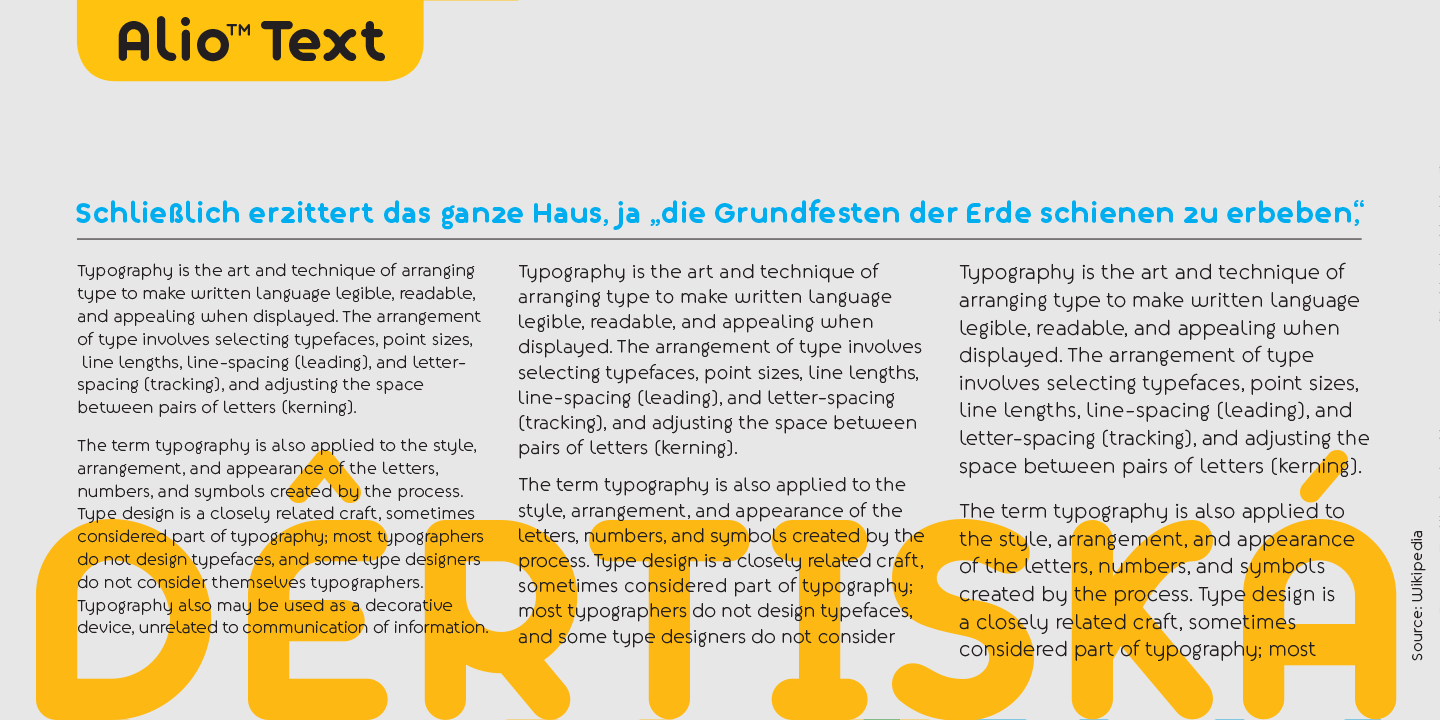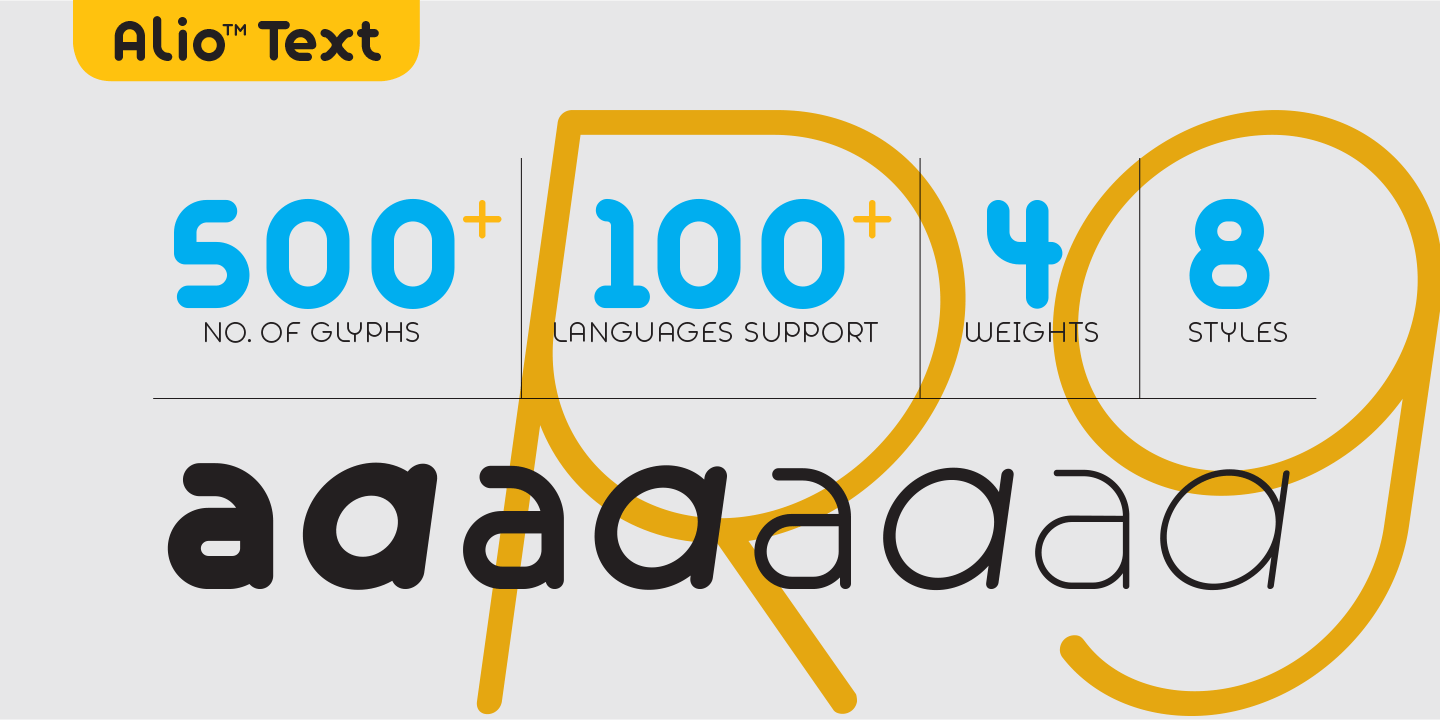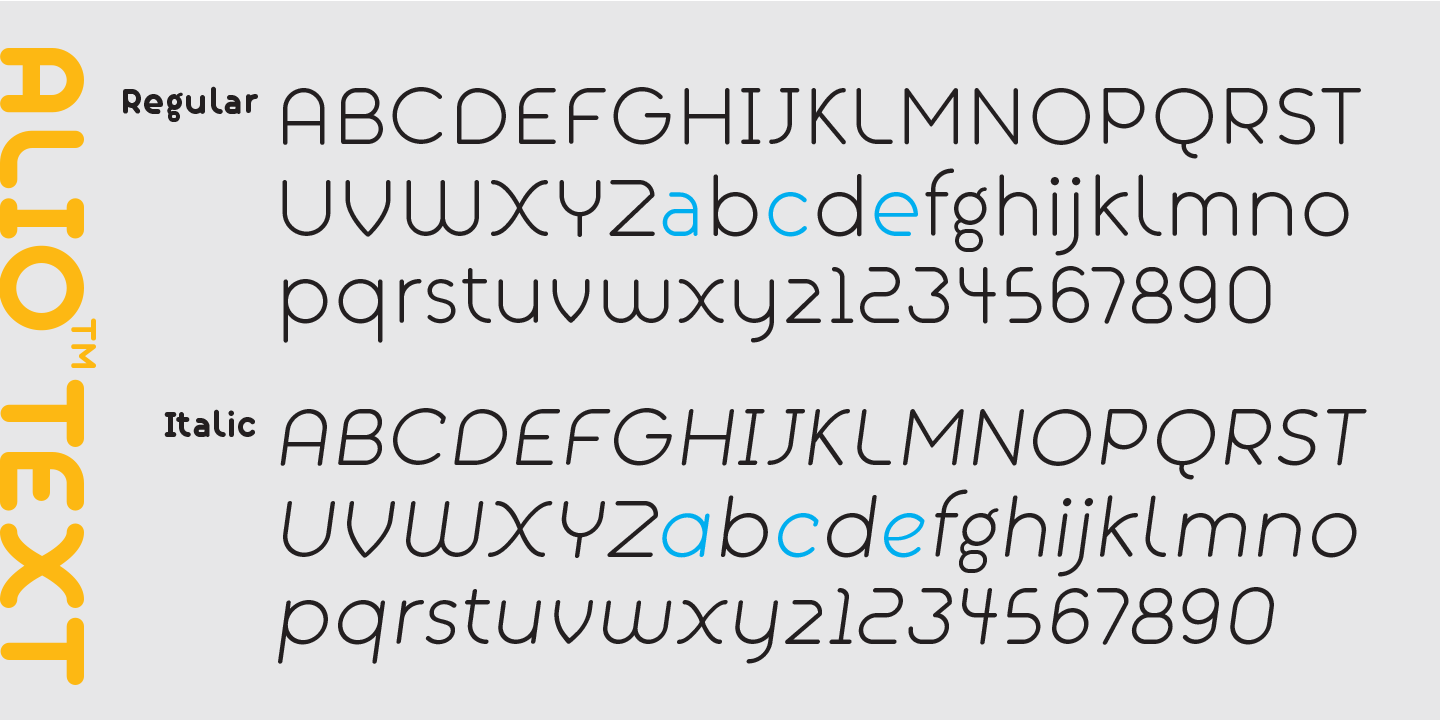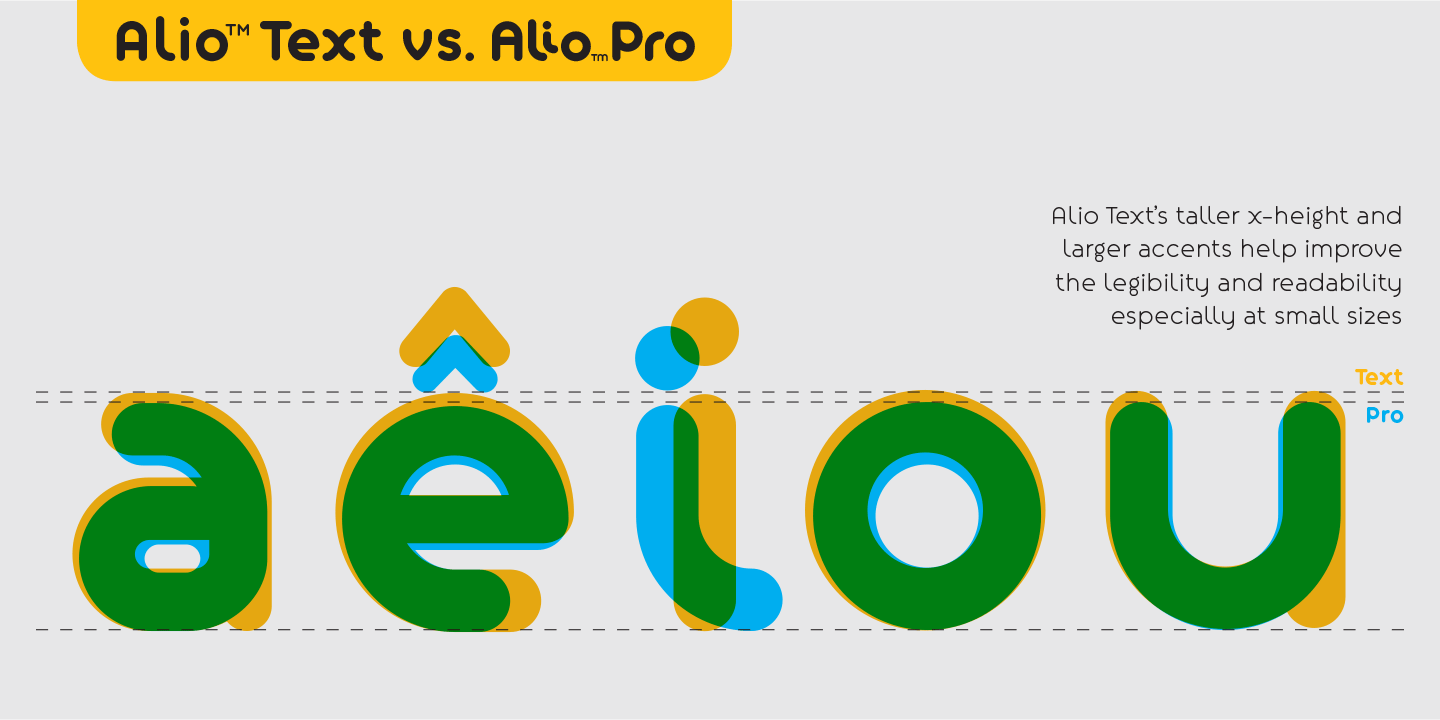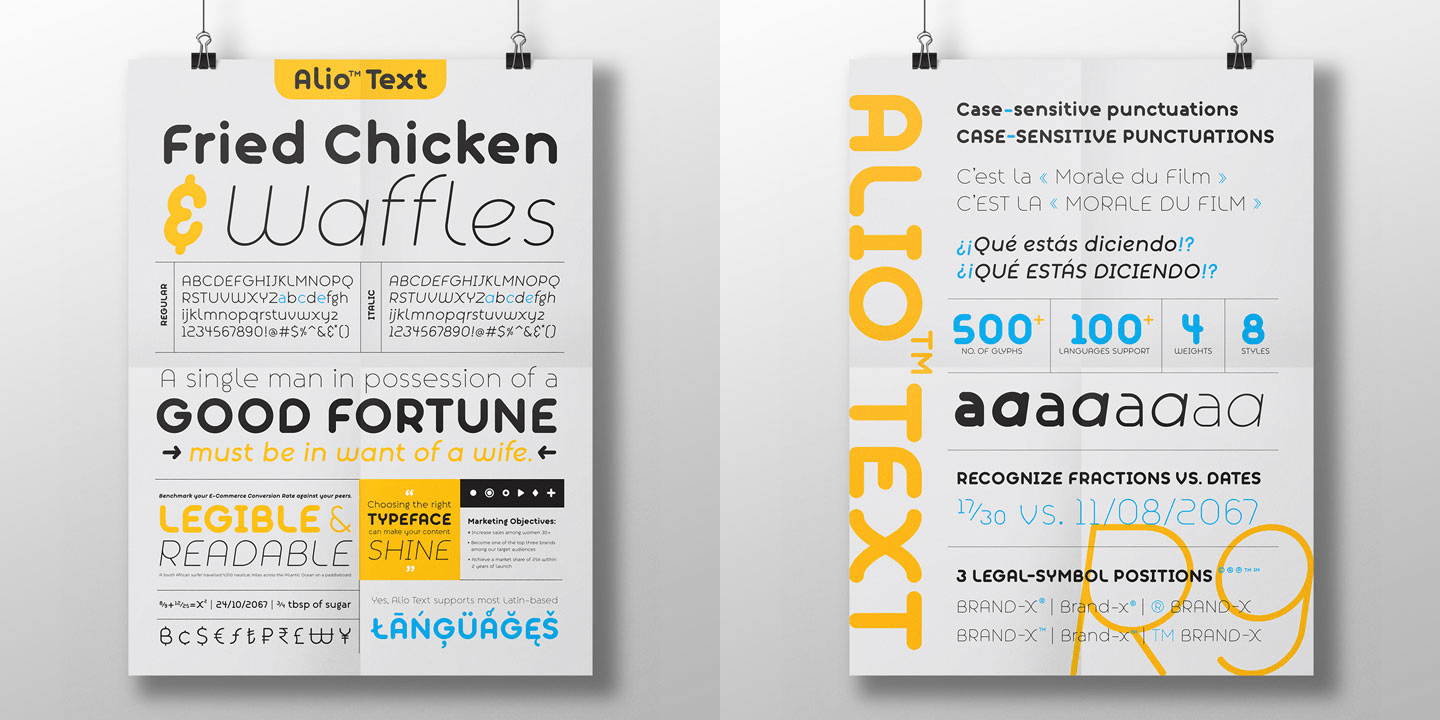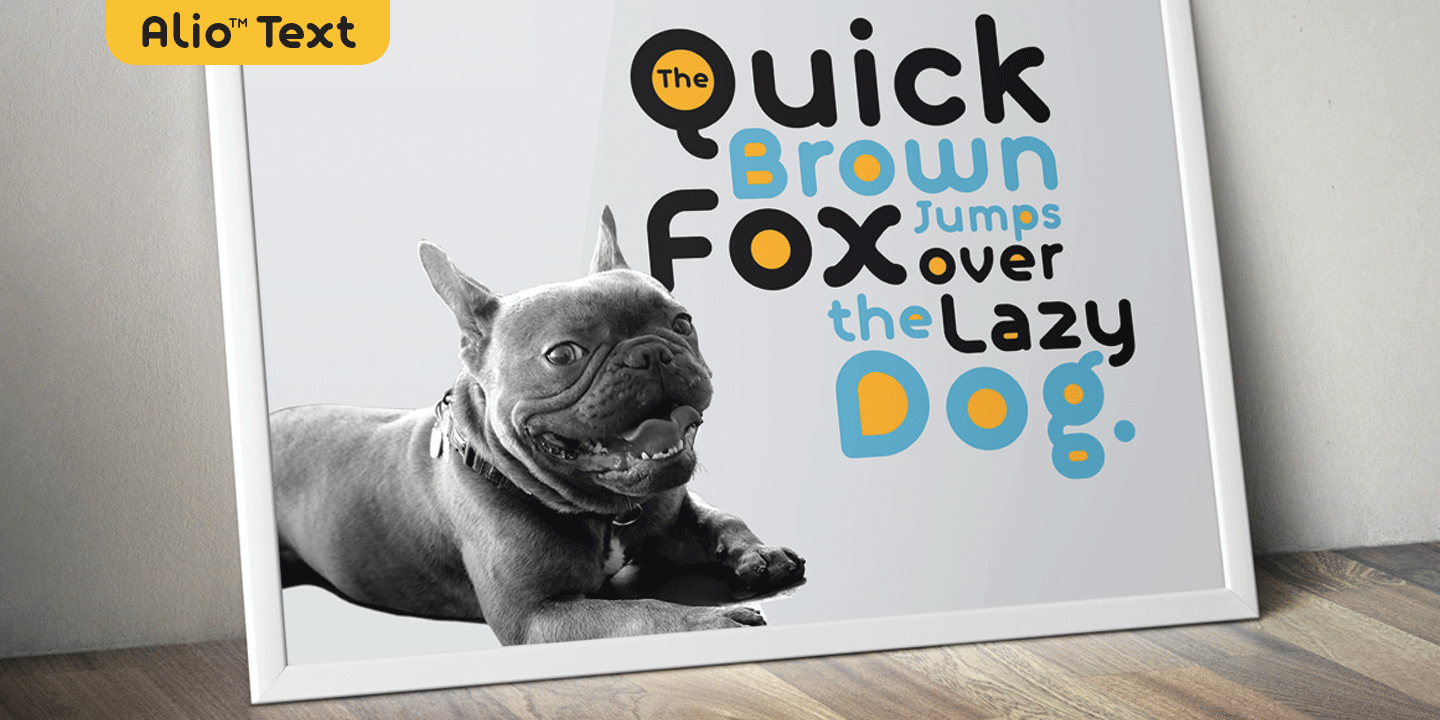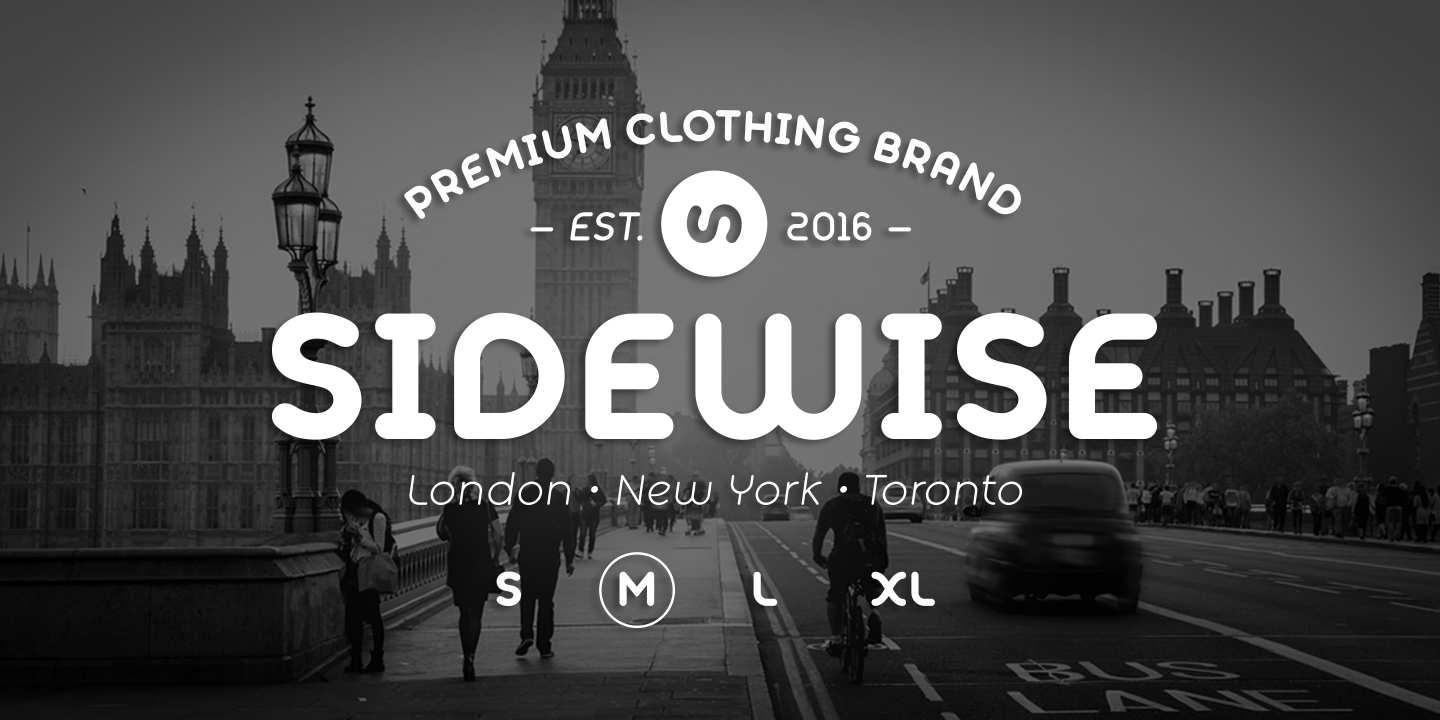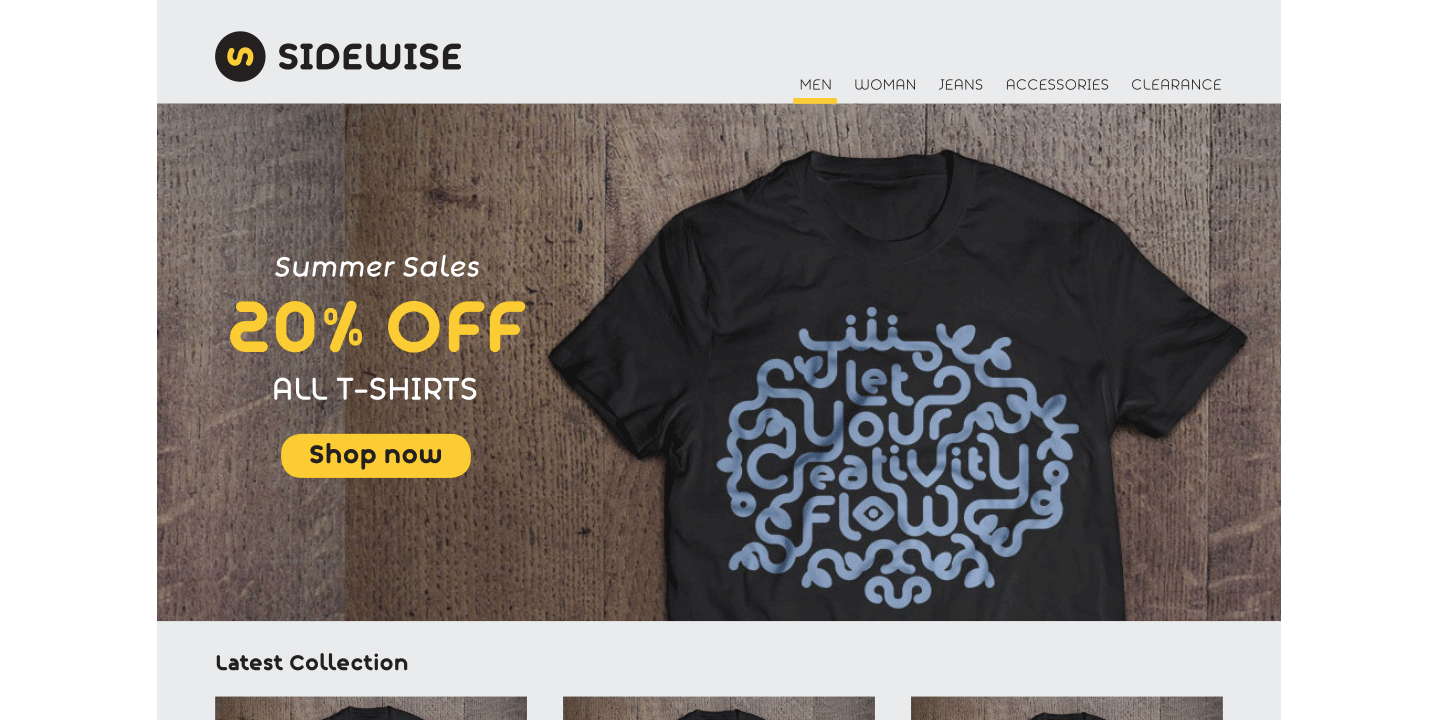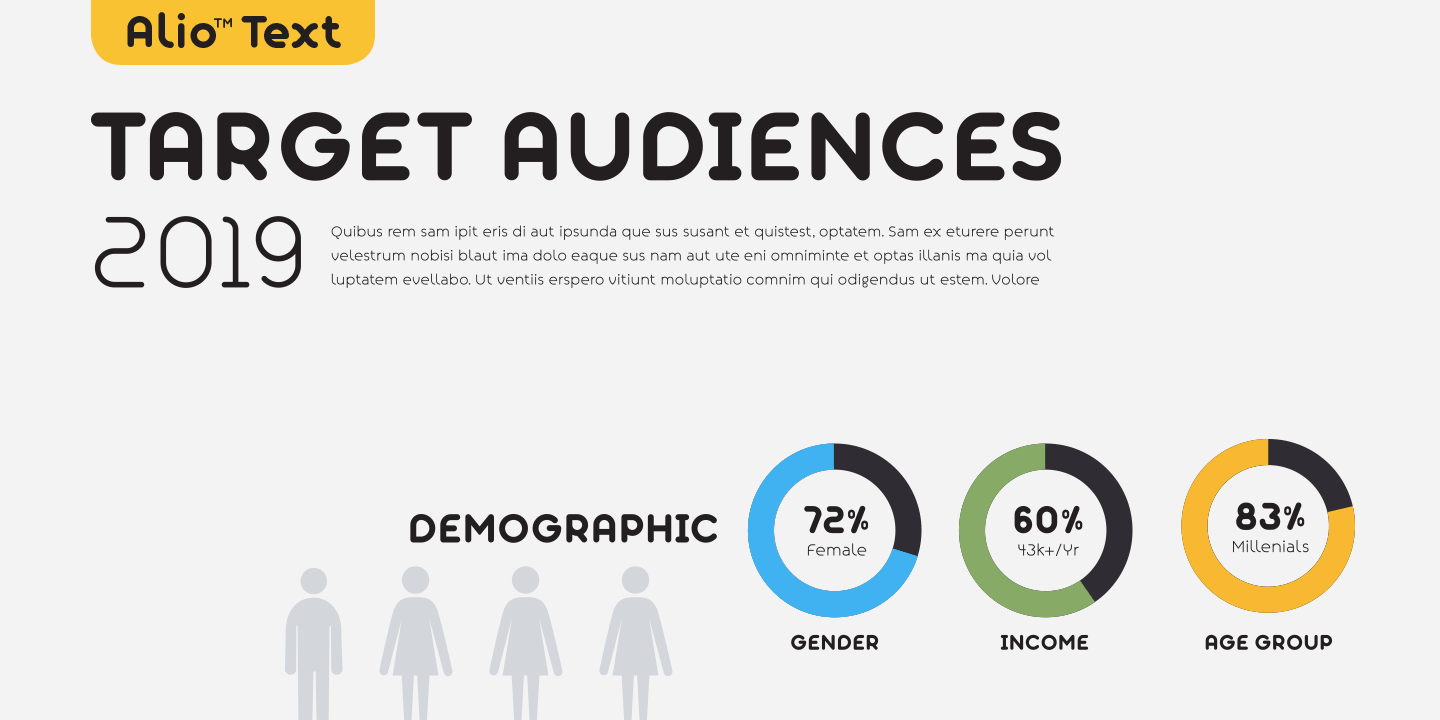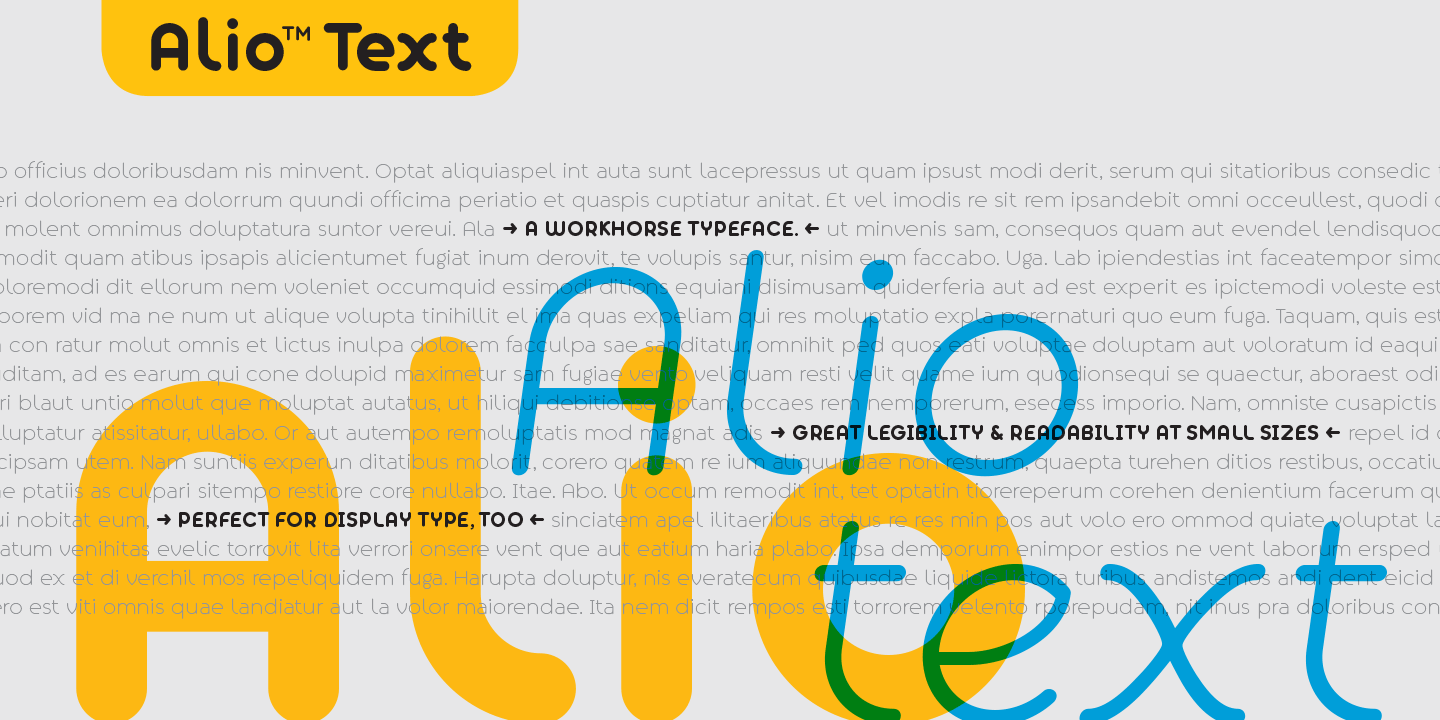
Alio Text
About Alio Text
Alio? Text is the workhorse of the Alio family. It works beautifully on both digital and prints as display type, body copy and anything in between. We redesigned Alio Text with a taller x-height, more pronounced accents, and wider letter spacing than…